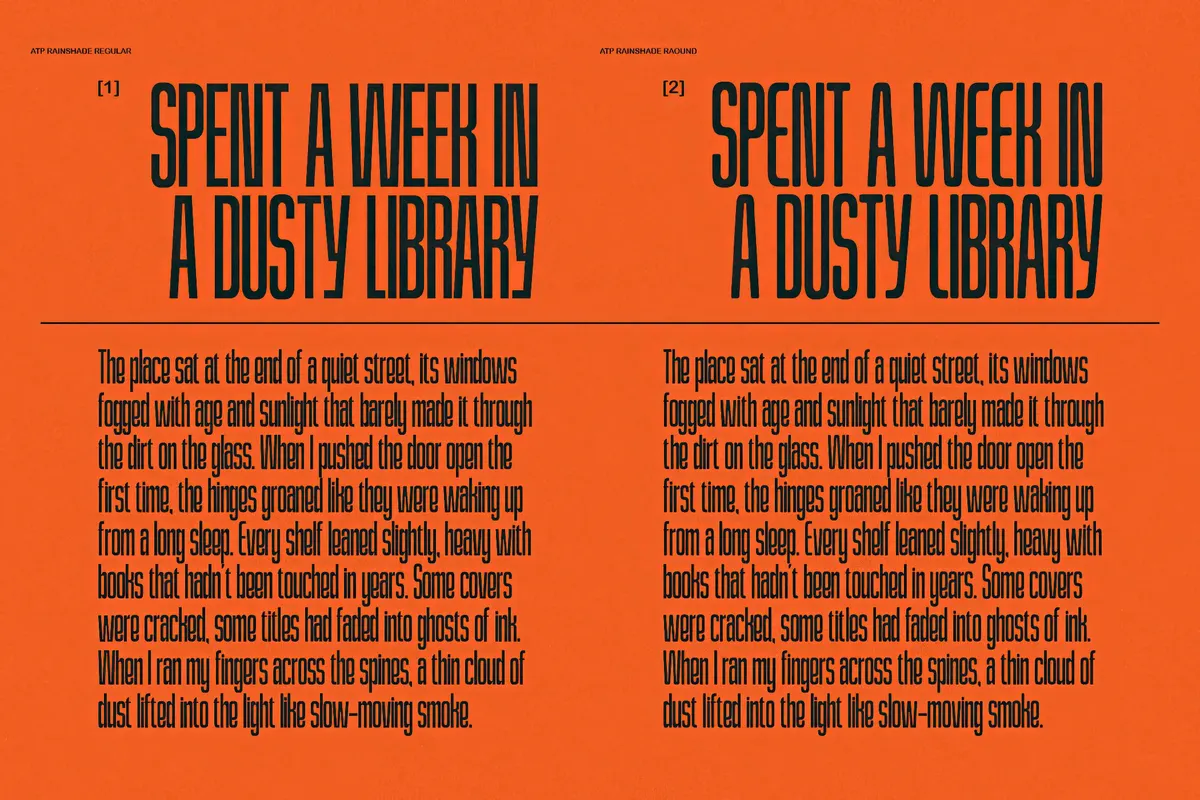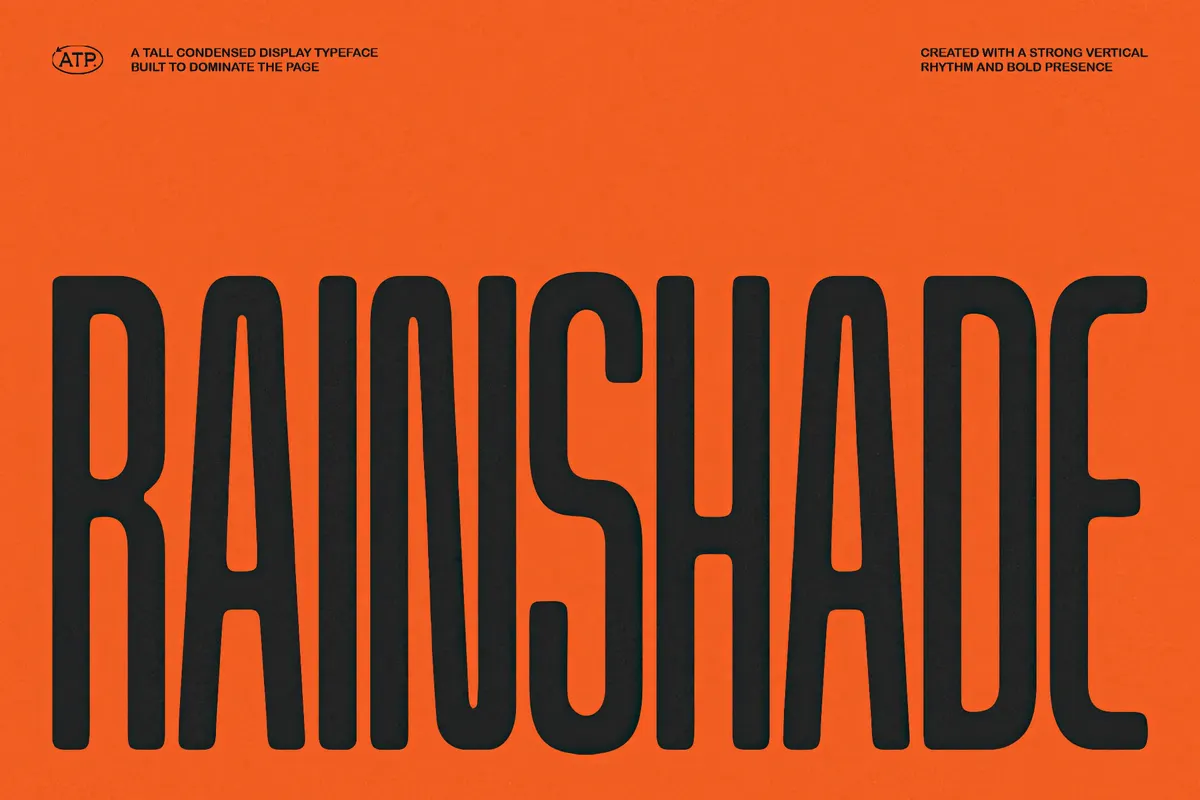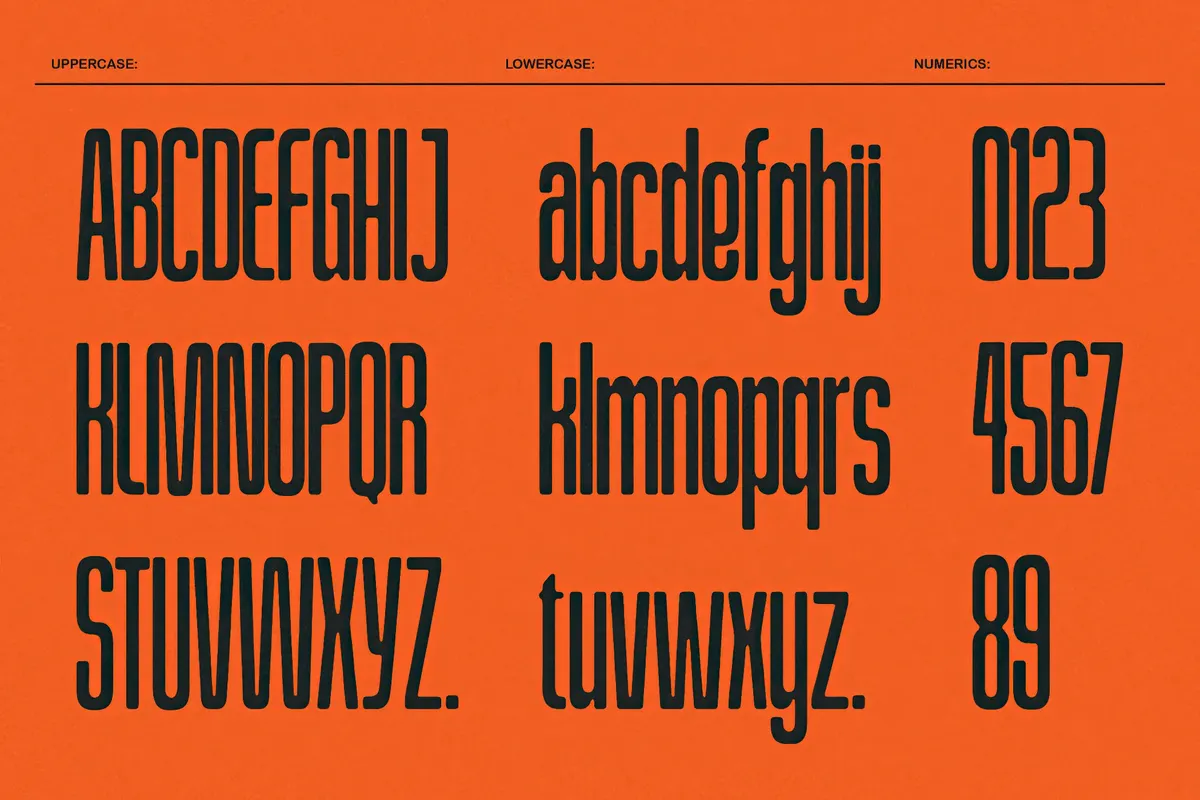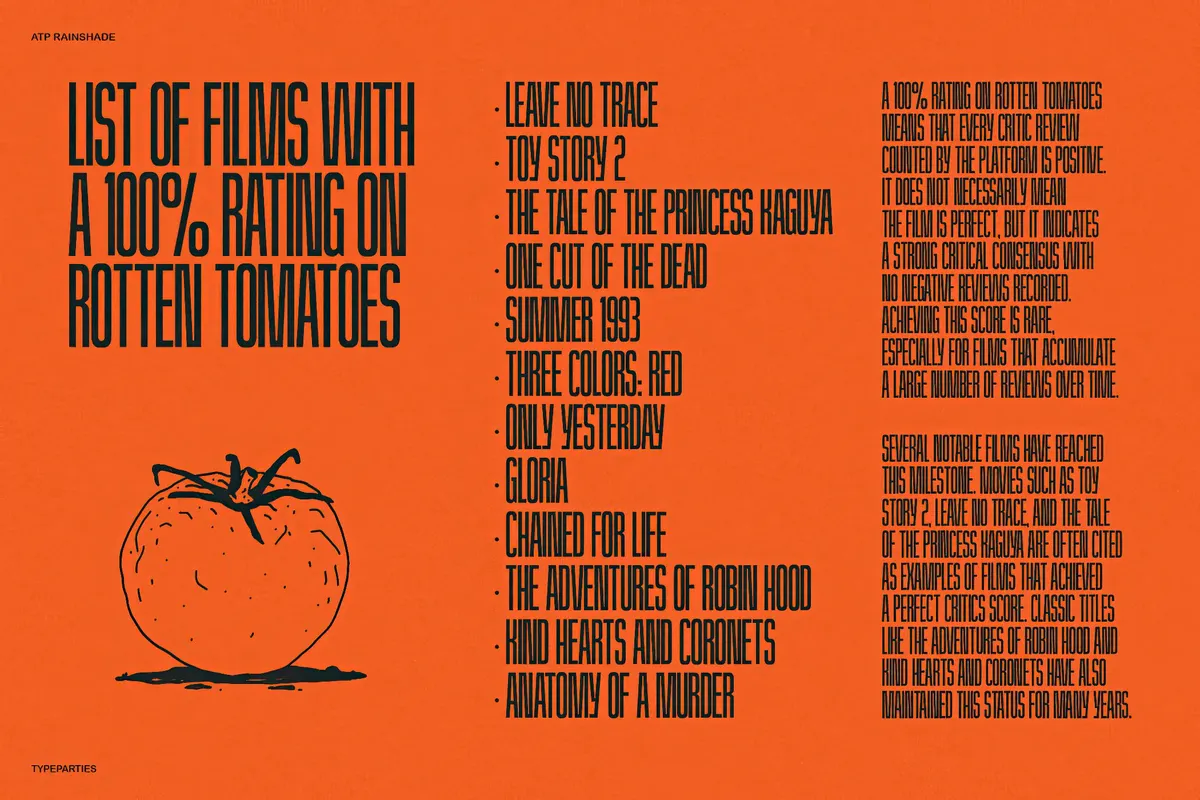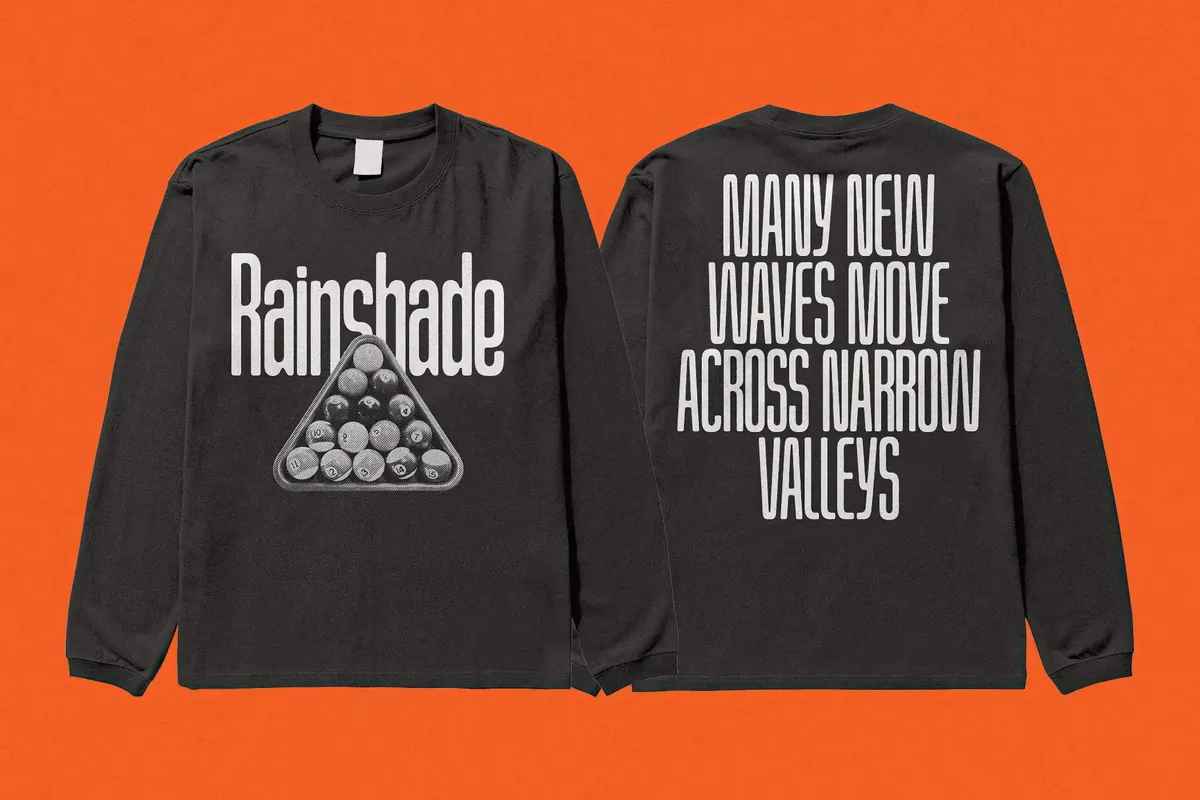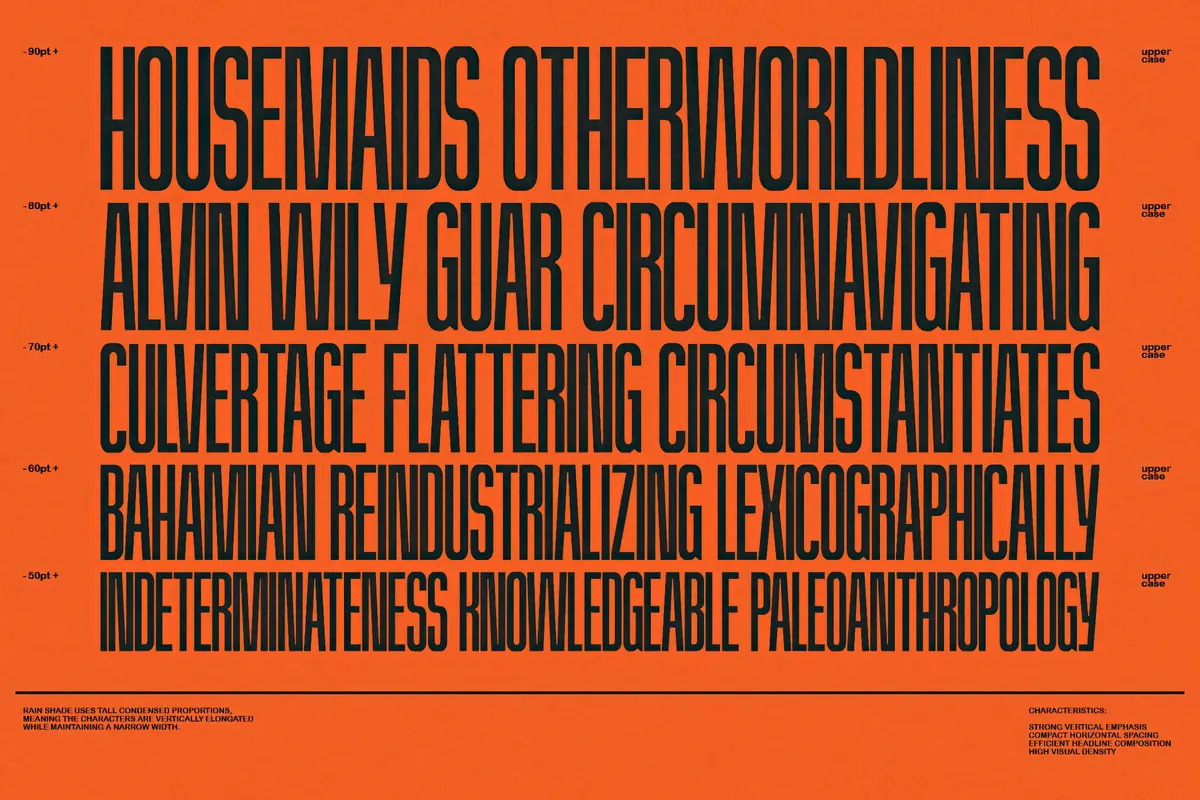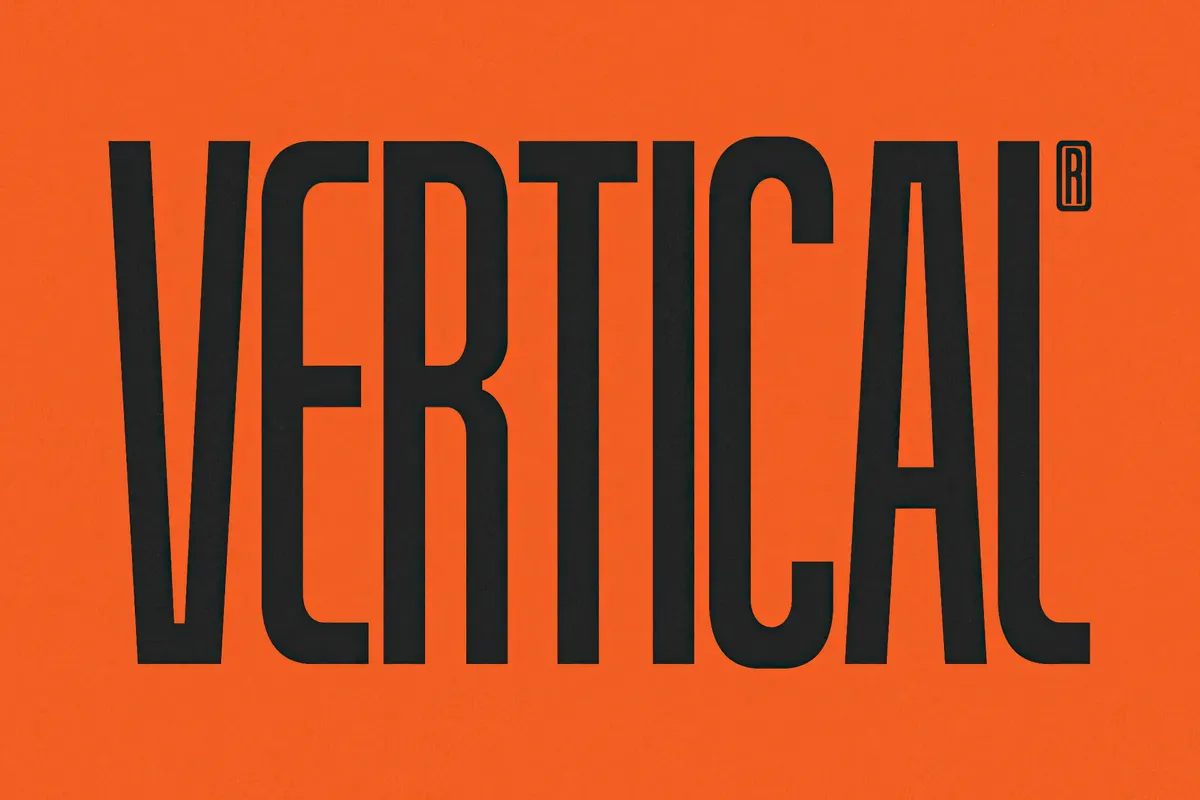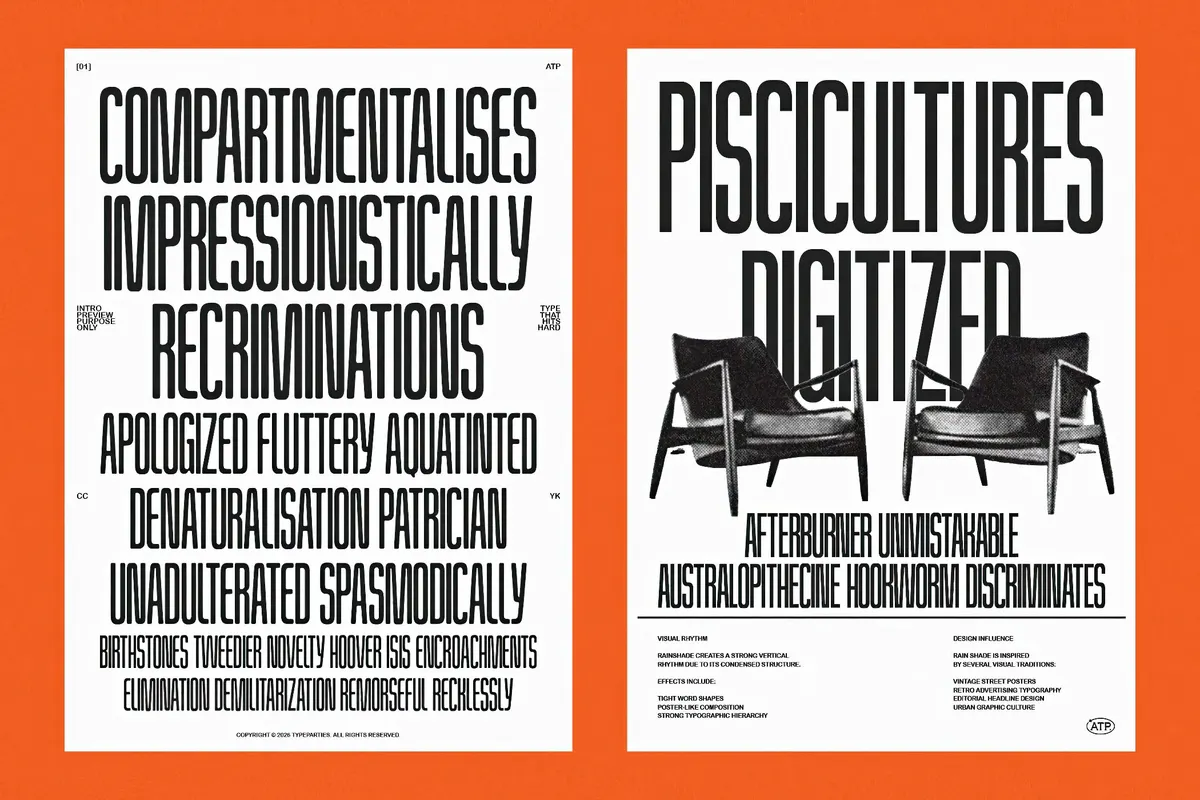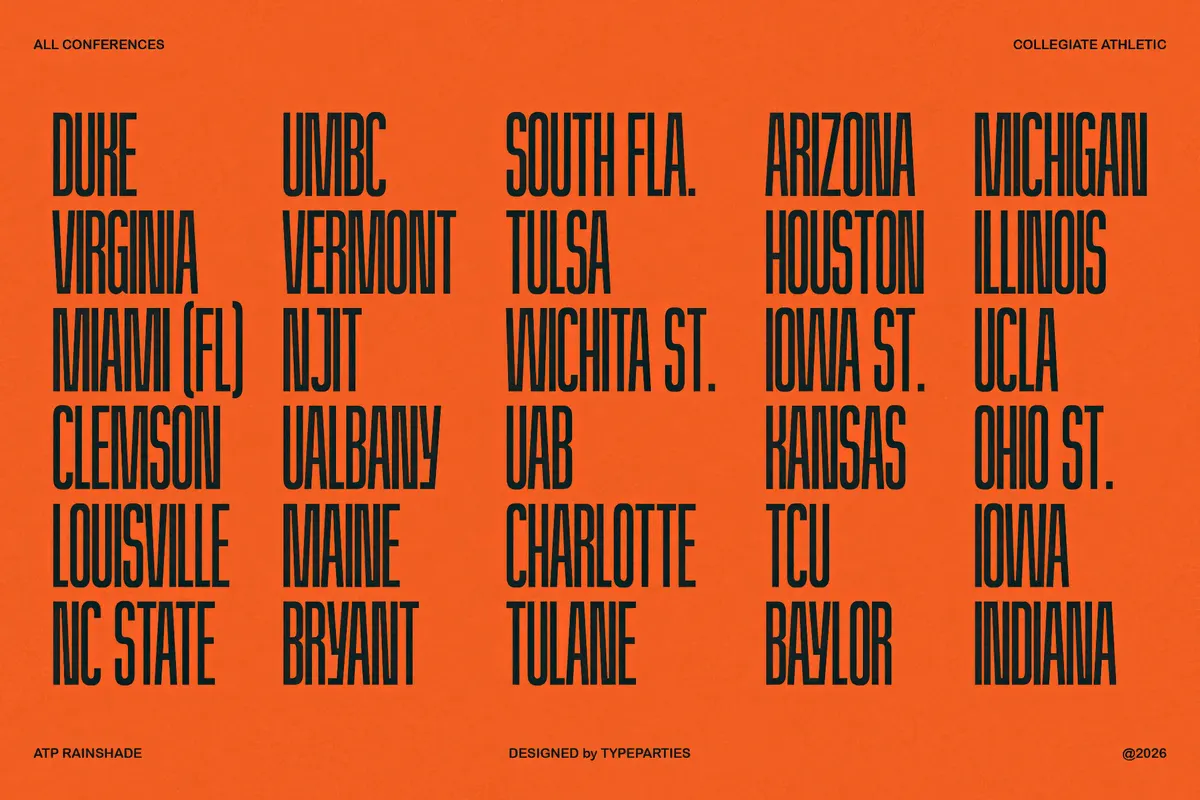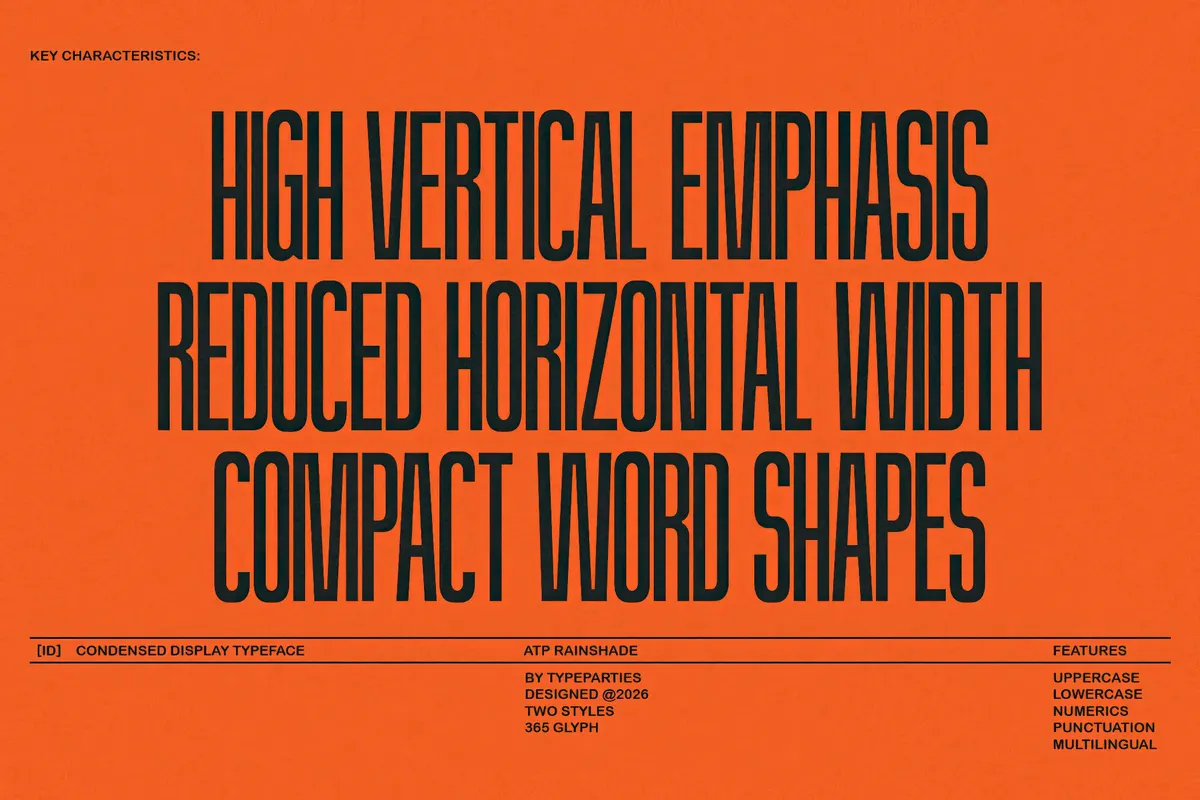
Rainshade - Condensed Display Font
Rainshade stretches every letter into a tall, narrow frame, strokes running thick and unbroken from top to bottom. The condensed width pushes letters close together, building a dense vertical rhythm that holds even at massive scale. Rounded terminals soften the rigid structure, keeping the heavy weight from feeling stiff.
Uses: poster headlines, editorial covers, branding and logotypes, packaging, and layouts.